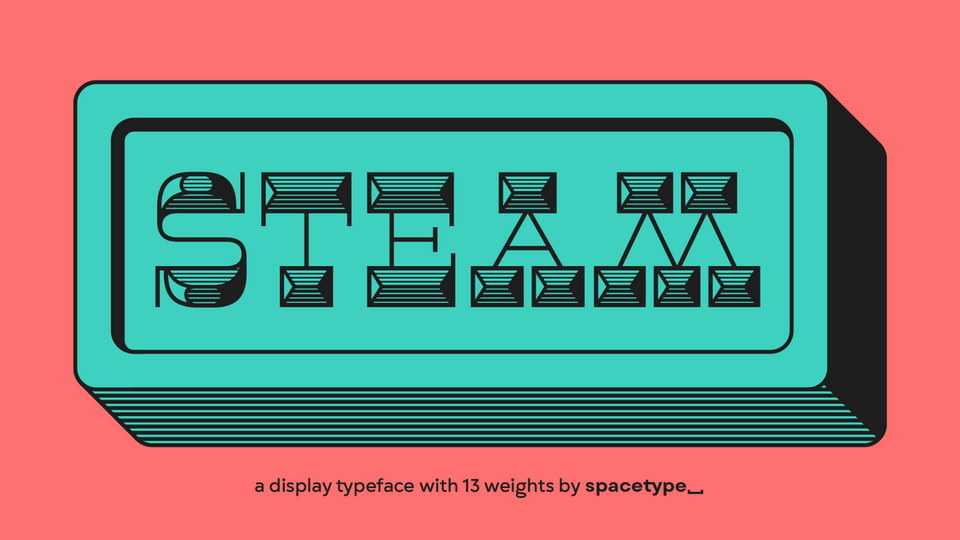
Download Steam font, a display typeface that combines the spirit of the old-fashioned wood type with modern flavors. Its distinctive reversed high contrast and extremely bold serifs make Steam font impossible to stay unnoticed.
Designer: Type Forward